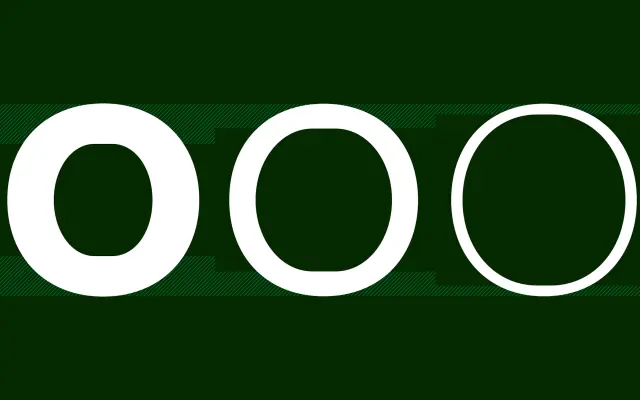
F37 Lineca
An experimental sans where every letter is built on a single horizontal line, with fifteen weights and Cyrillic, Greek and Arabic cuts.
F37 Lineca is one of F37's signature concept families, a sans where a straight horizontal line runs through every letterform, including the traditionally round ones. The foundry quote a Mondrian-style note about horizontal and vertical lines built with awareness and brought to harmony and rhythm. Thirty Latin styles run from Hair10 through Black with matching italics, and Lineca extends to Cyrillic, Greek and Arabic at the same depth, so it can carry an editorial or identity system with a strong, repeatable graphic device. F37 cite uses by Local, Forum, Literaturhaus and Omidyar Network.
F37 describe Lineca as an experiment that introduces a straight horizontal line into every letterform, even the round ones, citing a Mondrian-style quote about lines, awareness and rhythm. A thirty-style family with fifteen weights from Hair10 to Black with matching italics, including Cyrillic, Greek and Arabic cuts.